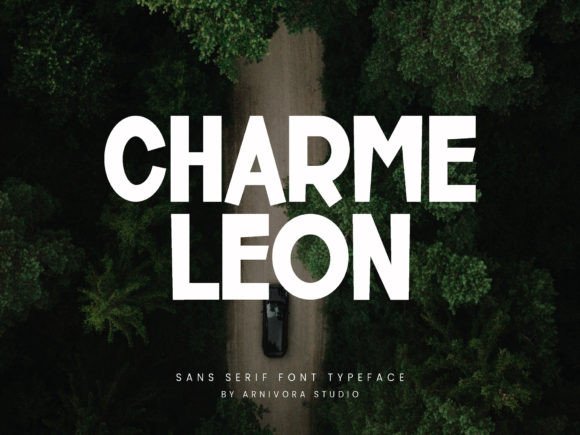
Meet Charmeleon, the captivating sans serif font that brings life to your creative endeavors. Experience the allure of simplicity and uniqueness, designed by the talented artnivora.std, this font is the perfect companion for your upcoming projects.
Dive into the world of elegance and sophistication with Charmeleon, embodying the essence of timeless beauty. Let your imagination soar as you explore endless possibilities in logo designs, magazine layouts, social media platforms, brochures, and myriad other design ventures.
With its clean lines and harmonious curves, Charmeleon effortlessly conveys both a sense of modernity and a touch of nostalgia. Whether you're crafting a captivating logo that demands attention or creating social media content that exudes charm, Charmeleon is your steadfast ally in the realm of visual communication.
Visualize a logo that radiates professionalism and leaves a lasting impression, thanks to the crisp and legible nature of Charmeleon. Seamlessly blend traditional and contemporary elements, embracing the versatility of this font to create a timeless design that stands the test of time.
Journey through the pages of a magazine adorned with Charmeleon's elegant presence. Let the words dance upon the page, captivating readers with their refined charm. Each letter, meticulously crafted, invites the reader on an immersive journey through your captivating content.
Harness the power of social media with Charmeleon as your secret weapon. Craft captivating posts that captivate your audience, leaving them mesmerized by the visual symphony you've orchestrated. Engage and inspire your followers with content that resonates, making a lasting impact in the ever-evolving digital landscape.
Open the door to a world of creative possibilities with Charmeleon. Step into the realm of brochures that exude sophistication and professionalism. Elevate your marketing materials to new heights, capturing the attention of potential clients and leaving an unforgettable impression.
Charmeleon is not just a font; it's an artistic odyssey, an invitation to explore the depths of your creativity. Embrace the fusion of simplicity and elegance, and embark on a journey where your imagination and this remarkable font intertwine, leading to masterpieces that speak volumes.